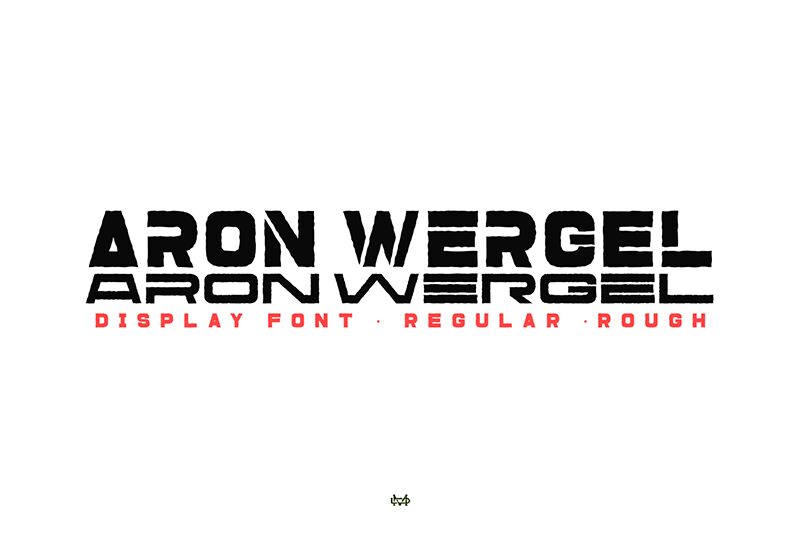
Aron Wergel
Aron Wergel font by madeDeduk is a geometric display typeface that captures the essence of modernity and minimalism. Its futuristic and clean appearance with precisely expanded shapes makes it ideal for tech-related design projects. Although technical in style, Aron Wergel’s bold yet elegant shapes still manage to have a friendly character with their round corners. The capital letters set has unique wide letterform structures that make it the perfect choice for impactful titles.